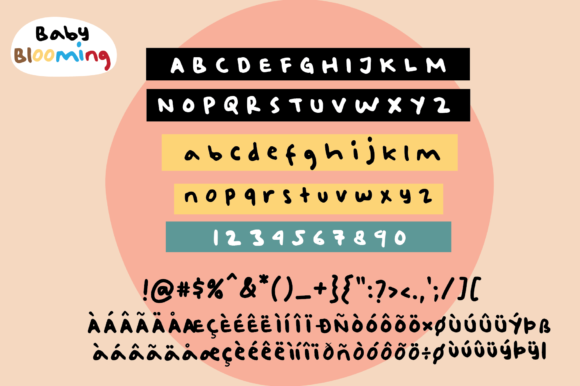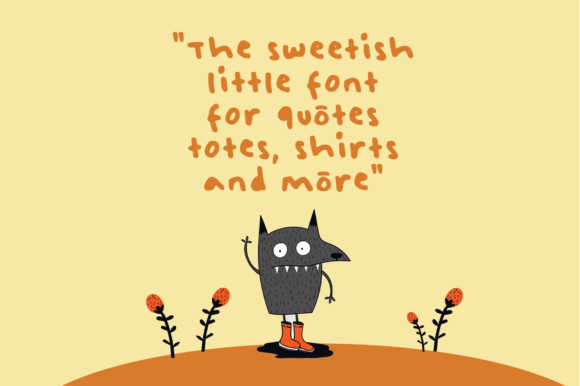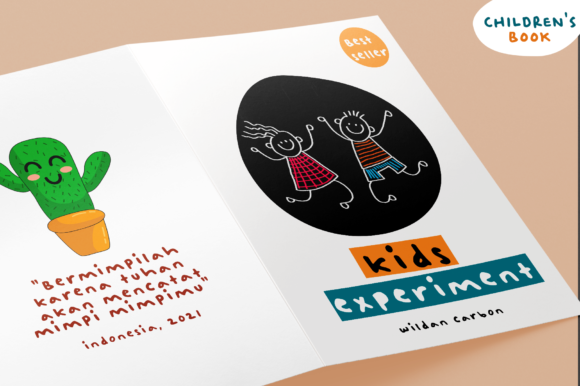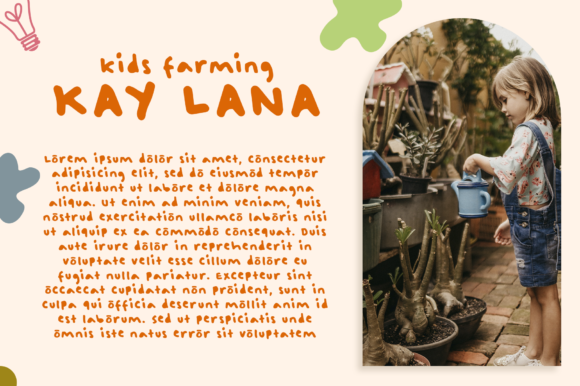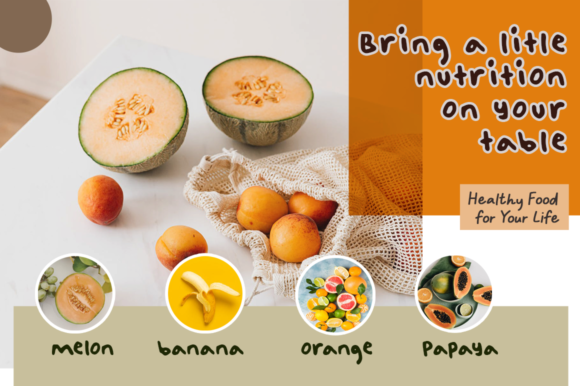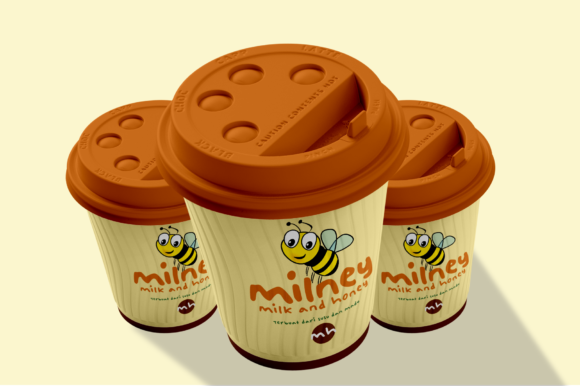
Baby Blooming Font: The Perfect Choice for Fun and Playful Designs
Are you looking for a font that embodies joy and authenticity? Do you want to add a touch of playfulness and cuteness to your designs? Look no further than the Baby Blooming Font! This adorable display font is perfect for any children-related activity or school project, and we’re excited to share its features and benefits with you.
What is Baby Blooming Font?
Baby Blooming Font is a cute, playful, and fun display font designed to bring a smile to your face. Its unique and charming style makes it an excellent choice for designers, crafters, and educators who want to create engaging and eye-catching materials for kids. Whether you’re working on a children’s book, a school project, or a fun activity, Baby Blooming Font is sure to add a touch of whimsy and delight.
Key Features of Baby Blooming Font
- Cute and Playful Design: Baby Blooming Font features a playful and adorable design that’s sure to capture the attention of kids and adults alike.
- Display Font: This font is specifically designed as a display font, making it perfect for headlines, titles, and other prominent text elements.
- Easy to Read: Despite its playful design, Baby Blooming Font is easy to read, even for younger kids.
- Versatile: This font can be used for a wide range of projects, from children’s books and school materials to craft projects and party decorations.
Uses for Baby Blooming Font
Baby Blooming Font is an incredibly versatile font that can be used for a variety of projects, including:
- Children’s Books: Add a touch of whimsy and fun to your children’s book with Baby Blooming Font.
- School Projects: Use Baby Blooming Font to create eye-catching posters, presentations, and other materials for school.
- Craft Projects: Add a playful touch to your craft projects, such as party decorations, gift tags, and other DIY materials.
- Activity Sheets: Create engaging activity sheets, such as coloring pages, mazes, and word searches, with Baby Blooming Font.
Tips for Using Baby Blooming Font
Here are a few tips for getting the most out of Baby Blooming Font:
- Use it Sparingly: While Baby Blooming Font is adorable, it’s best to use it sparingly to avoid overwhelming your design.
- Pair it with Other Fonts: Consider pairing Baby Blooming Font with other fonts to create visual interest and add contrast.
- Experiment with Colors: Have fun experimenting with different colors and textures to add depth and interest to your design.
In conclusion, Baby Blooming Font is a delightful and playful display font that’s perfect for any children-related activity or school project. Its cute and charming design makes it an excellent choice for designers, crafters, and educators who want to create engaging and eye-catching materials for kids. With its versatility, ease of use, and adorable design, Baby Blooming Font is sure to become a favorite in your font collection.